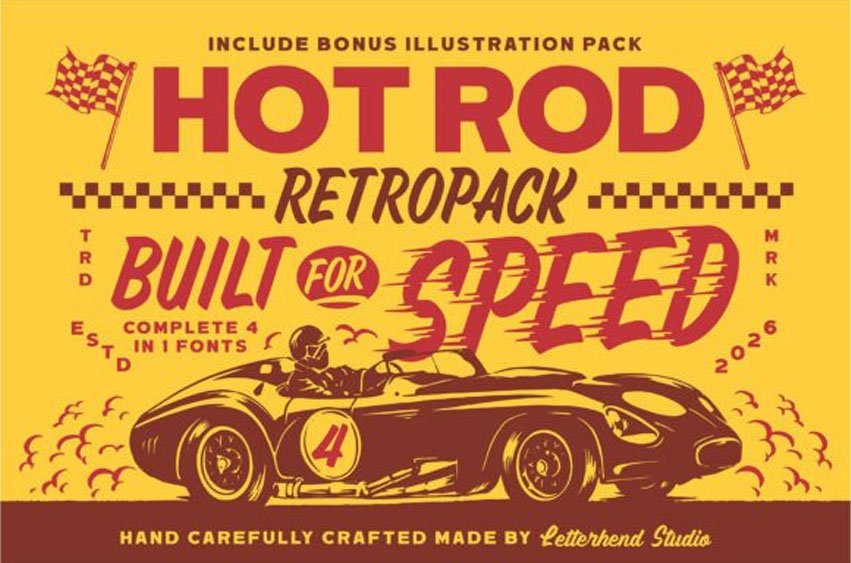
Hotrod Font Retropack is a bold retro display collection inspired by classic racing posters and vintage garage signage.
The letterforms feature strong strokes, dynamic angles, and energetic shapes that capture the spirit of speed and mid-century automotive culture. With its punchy presence and nostalgic attitude, this set is built to stand out in headlines and large layouts.